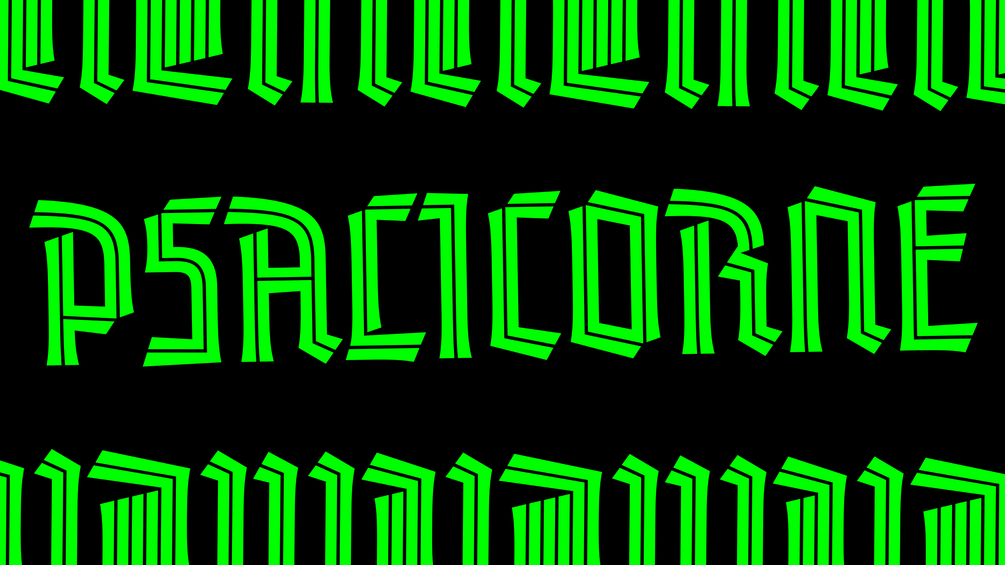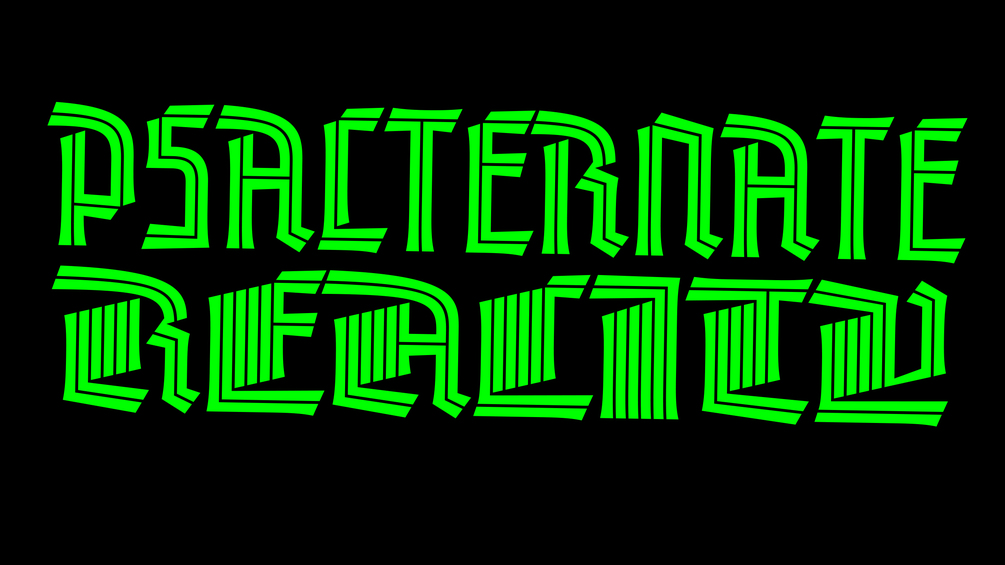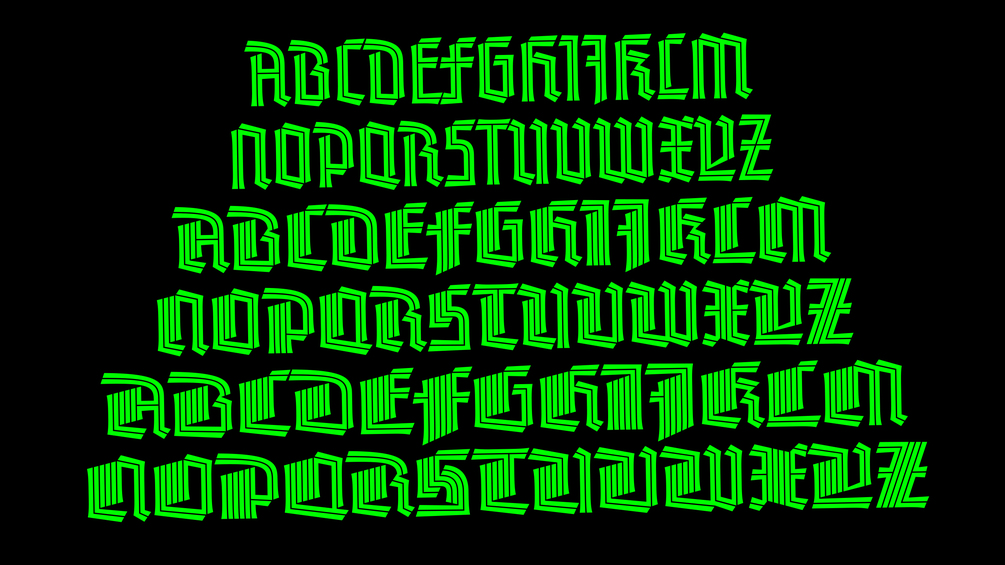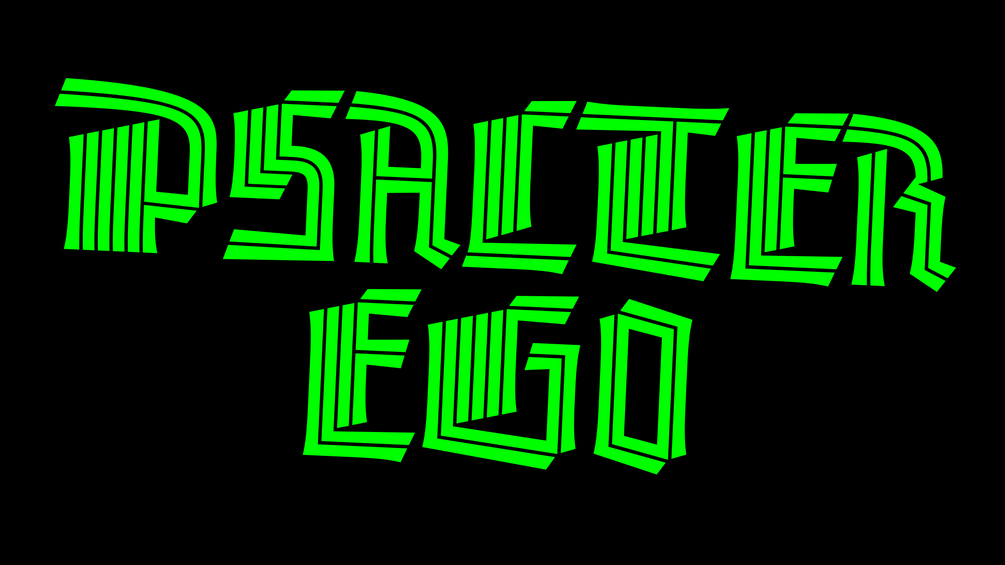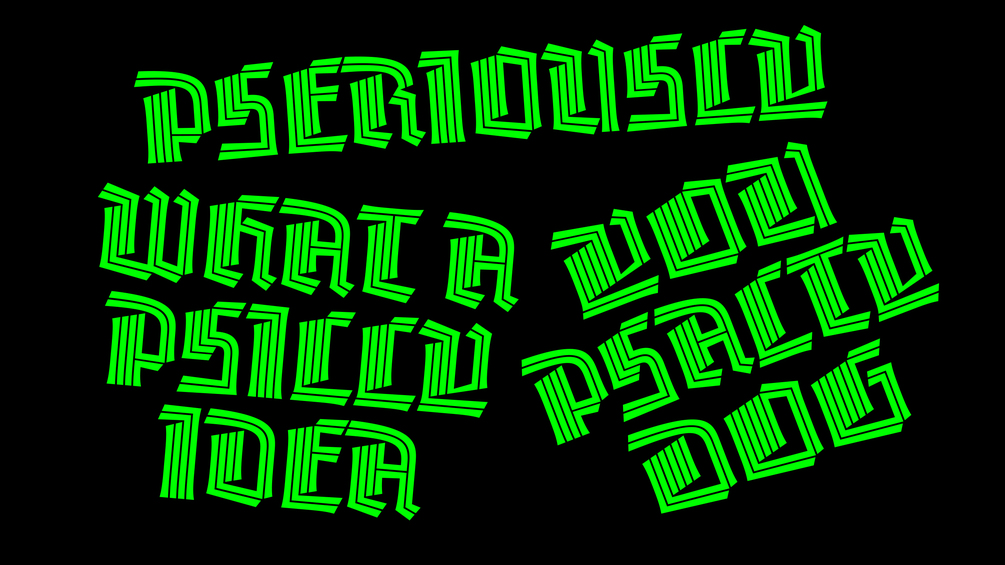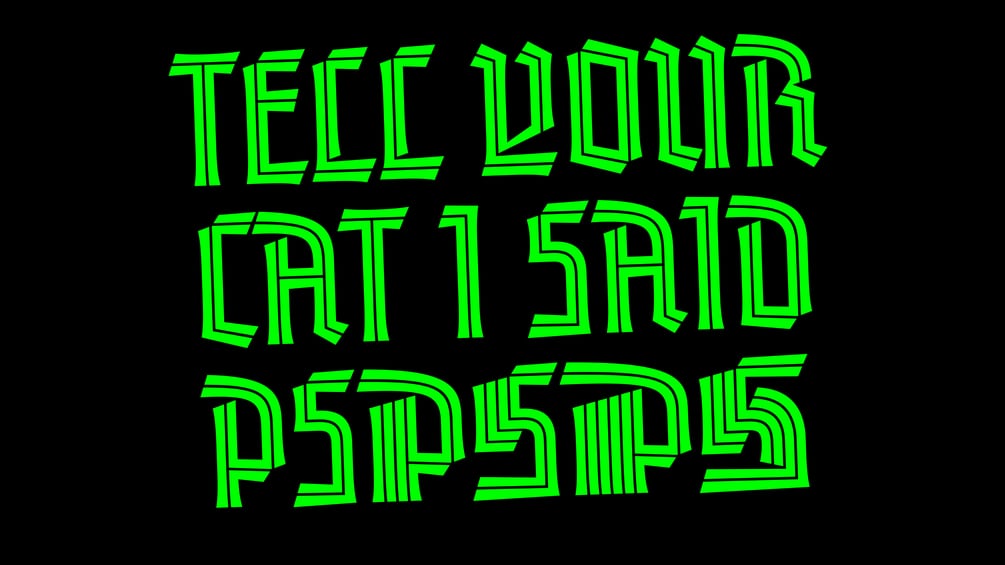
Psalicorne
A mythical typeface that has been described since antiquity as a cross between Gothic capitals and an accordion. In the Middle Ages, it was a symbol of purity and grace which could only be captured by anyone who purchased a license from a greedy goblin. Its stylistic alternates were described as having the power to render ordinary titles illegible and cure boring layouts of mediocrity.
A set of strange and wondrous Gothic capitals
OpenType features
Double Caps (.ss01), Triple Caps (.ss02), Long F (.ss04)